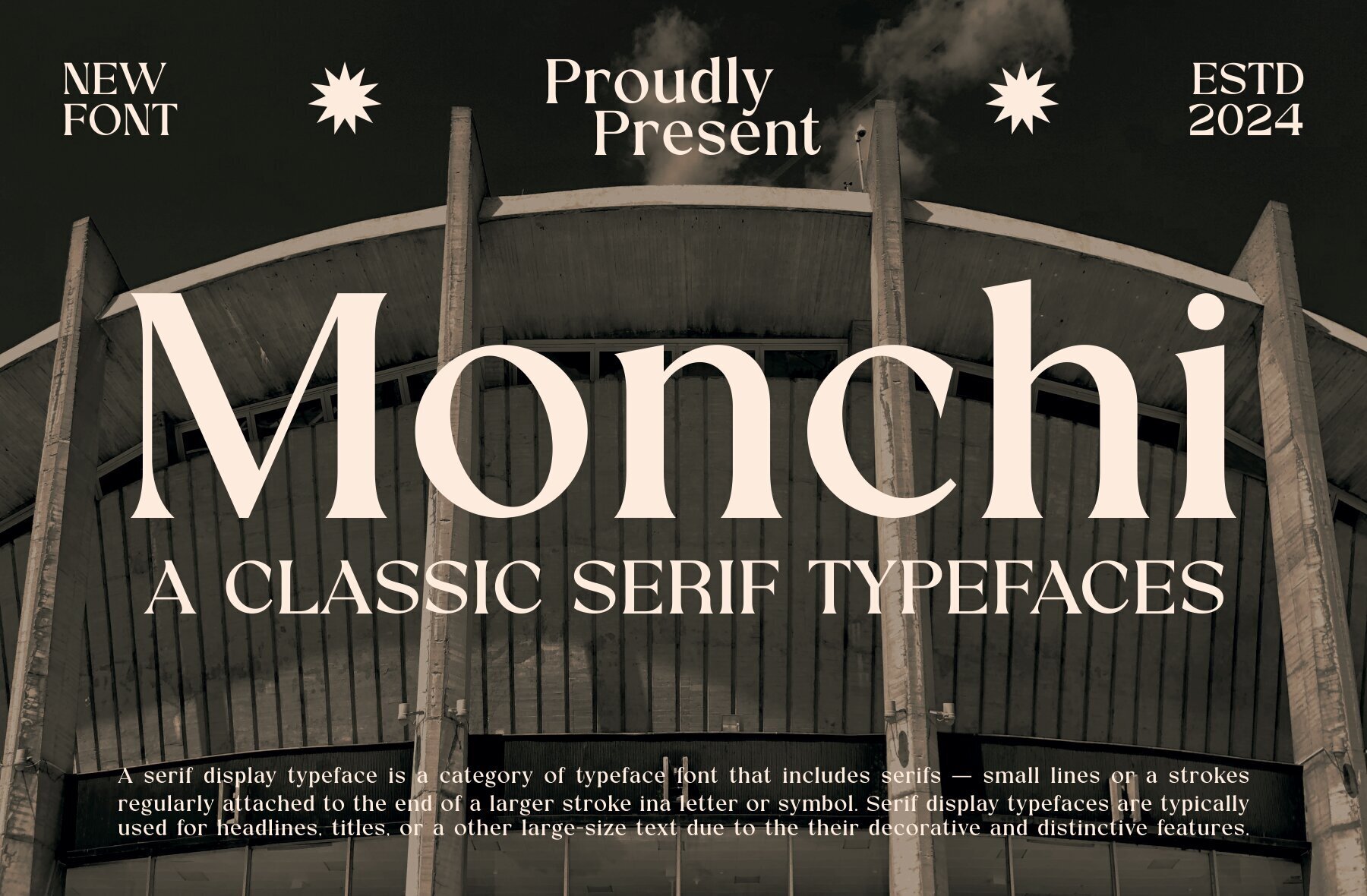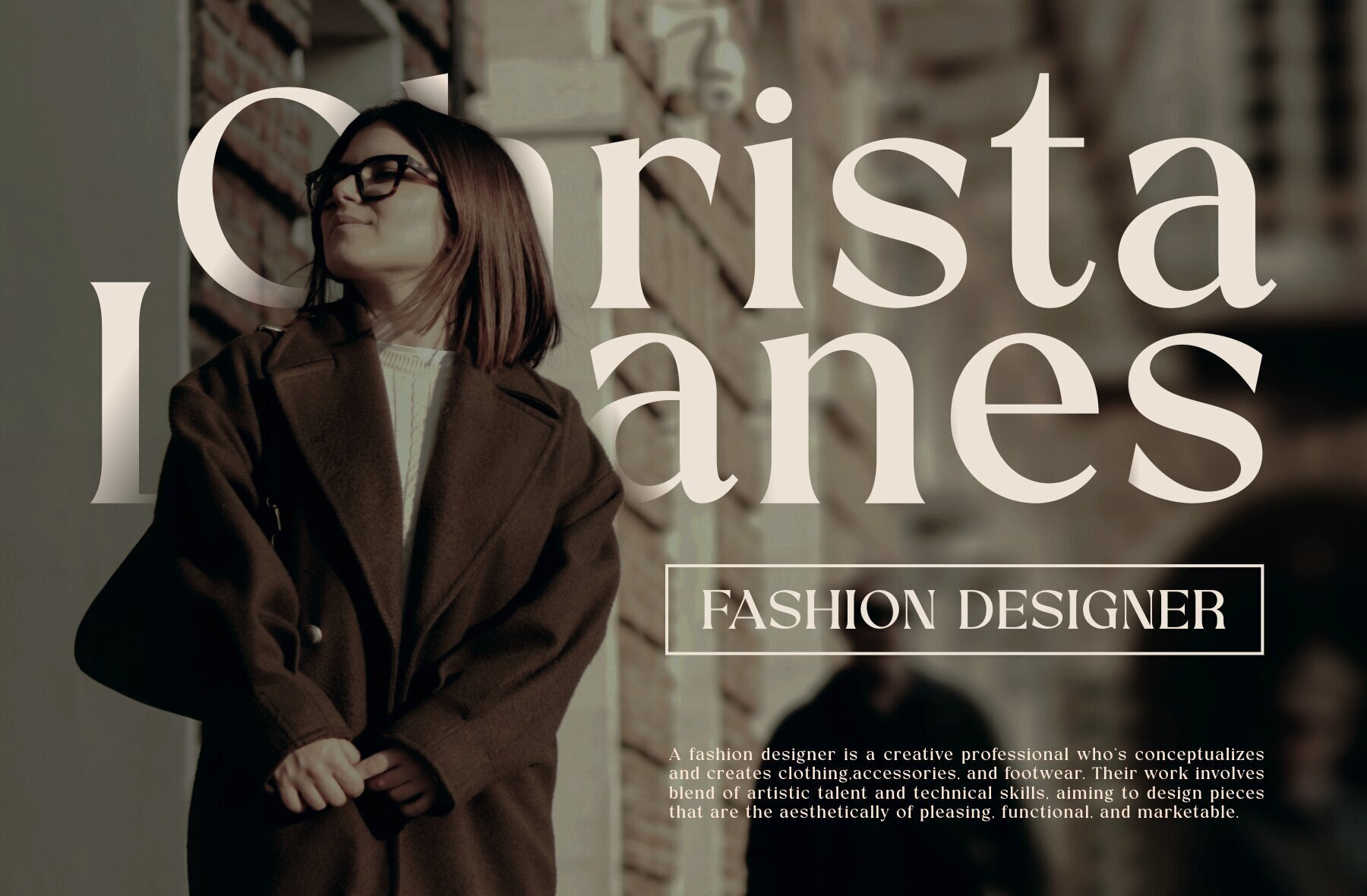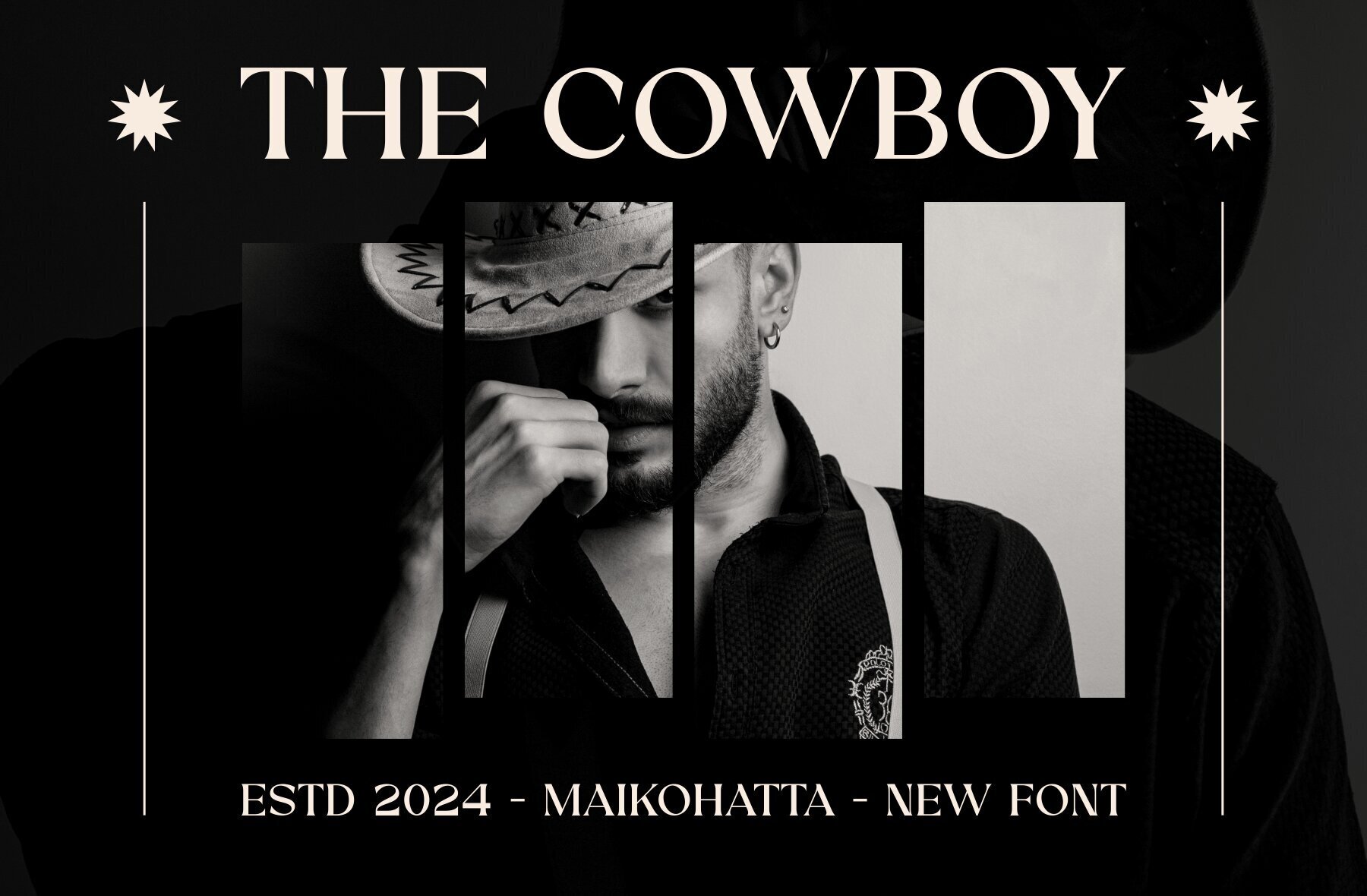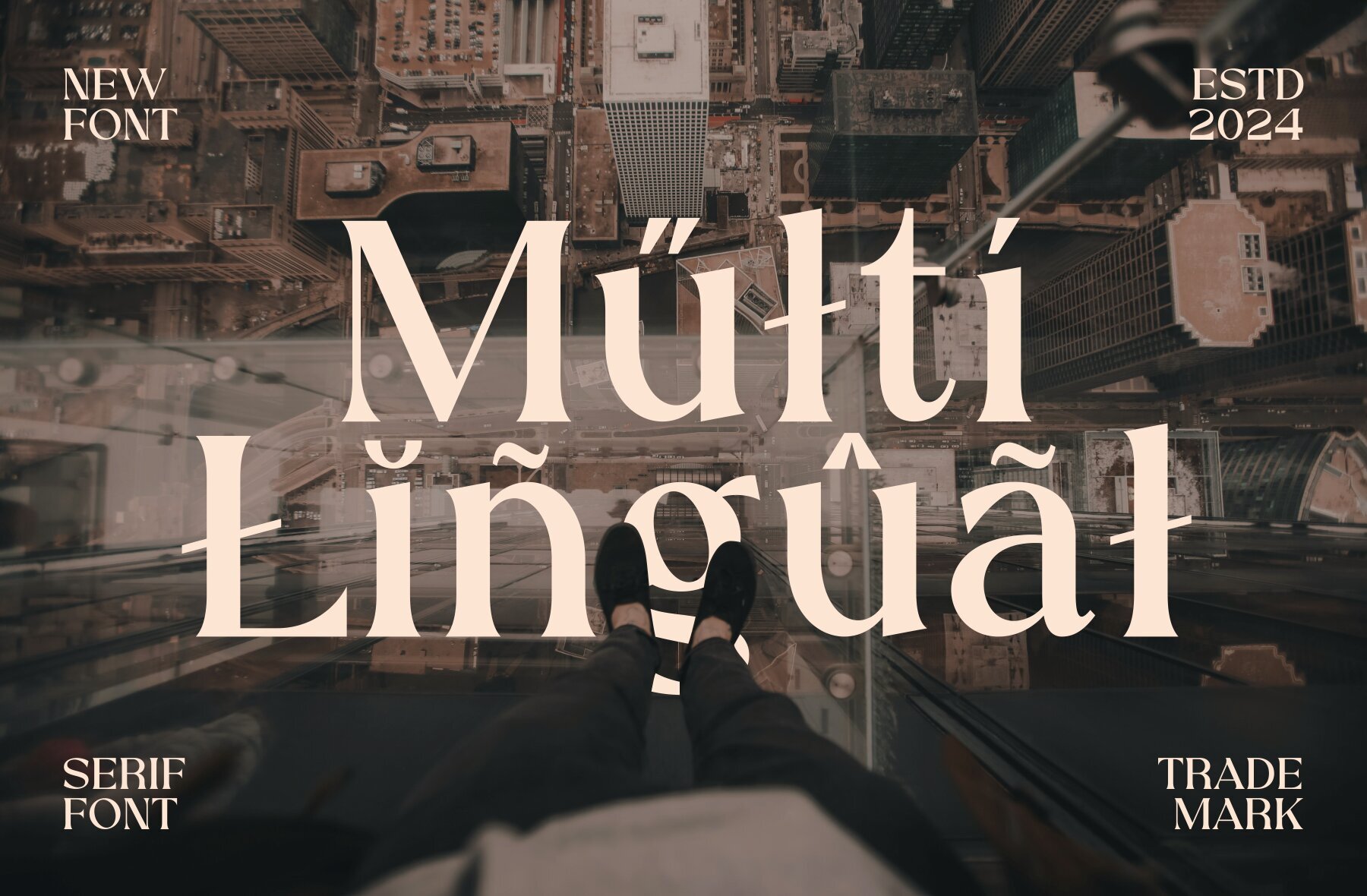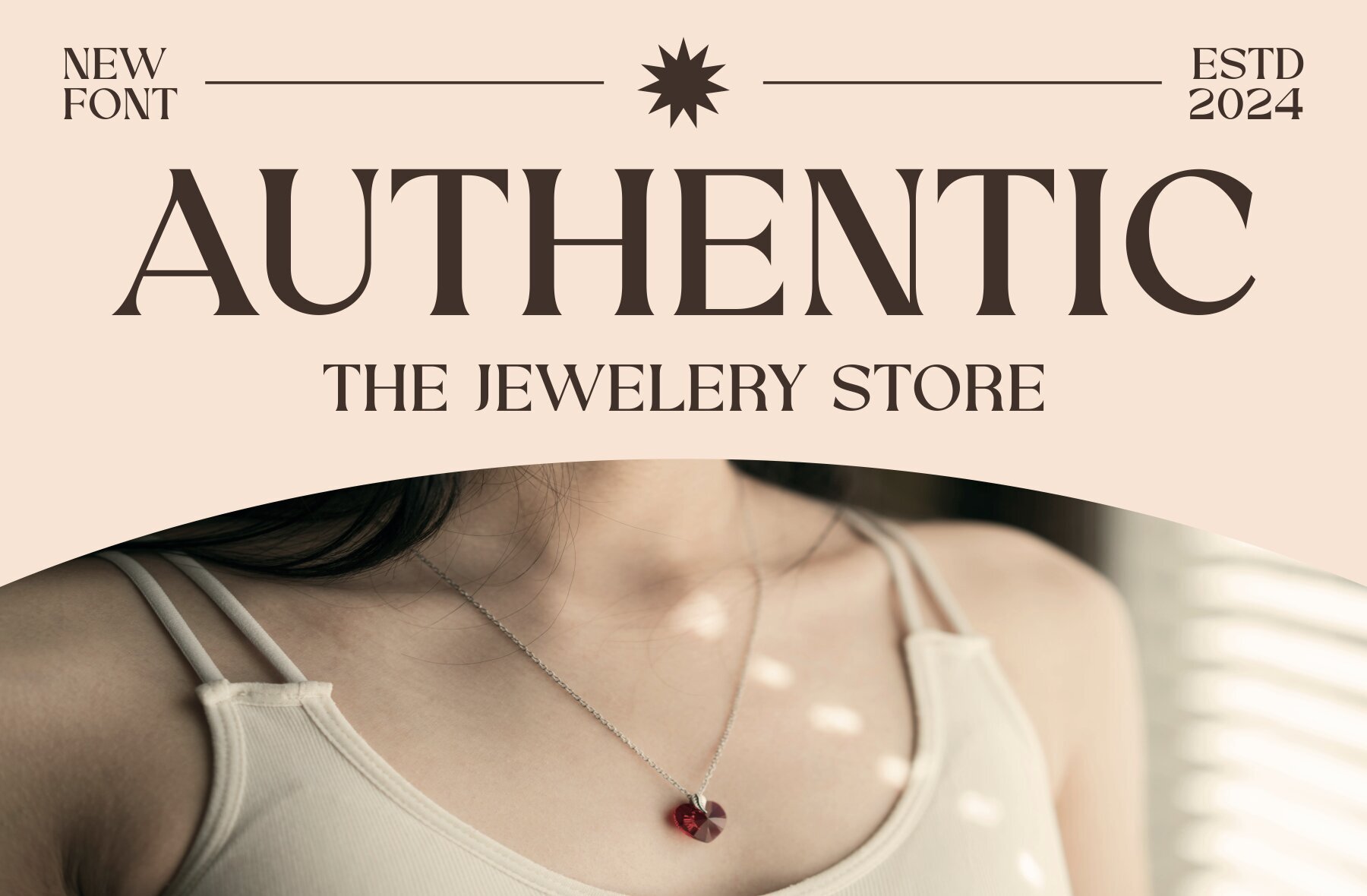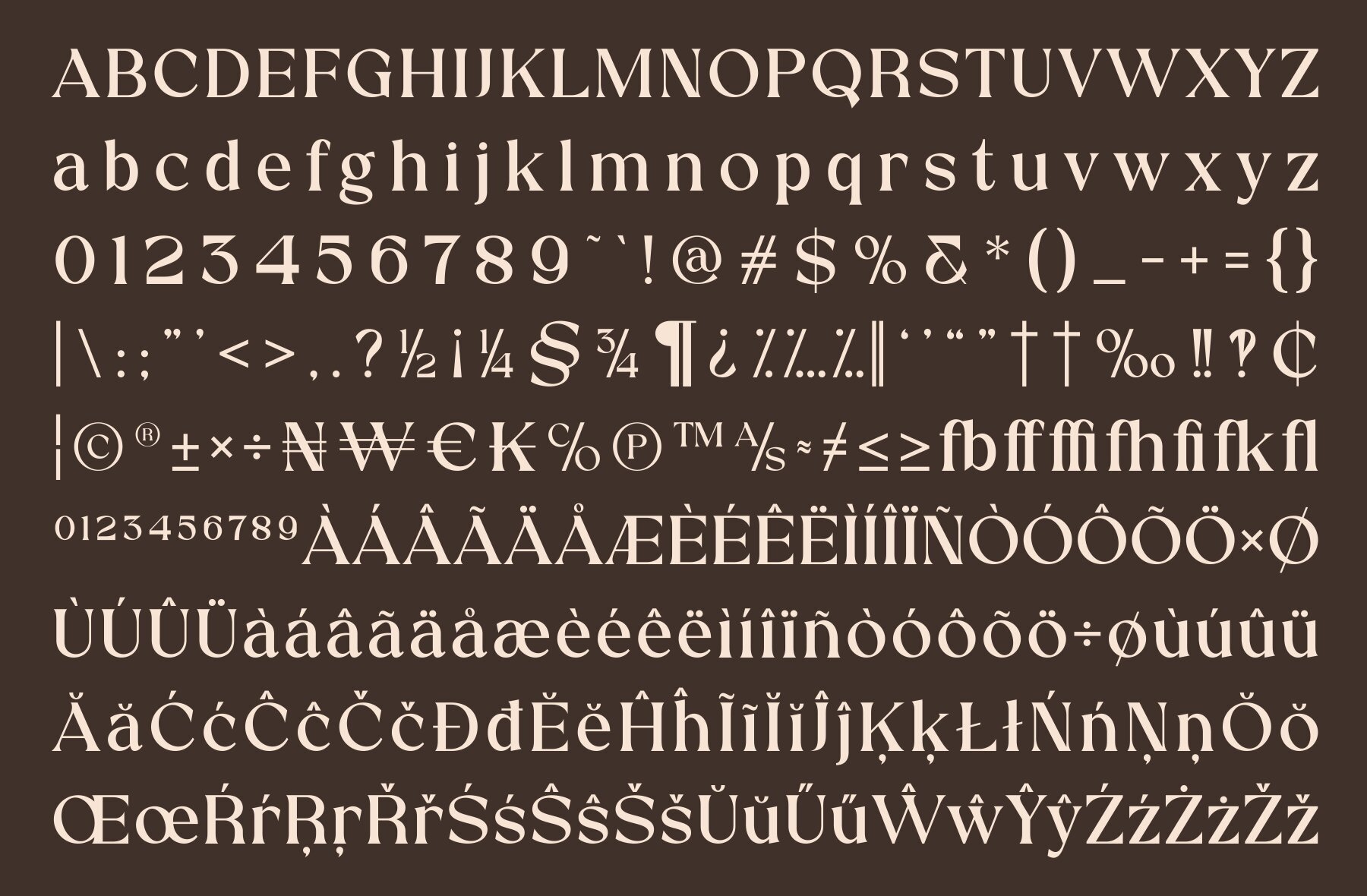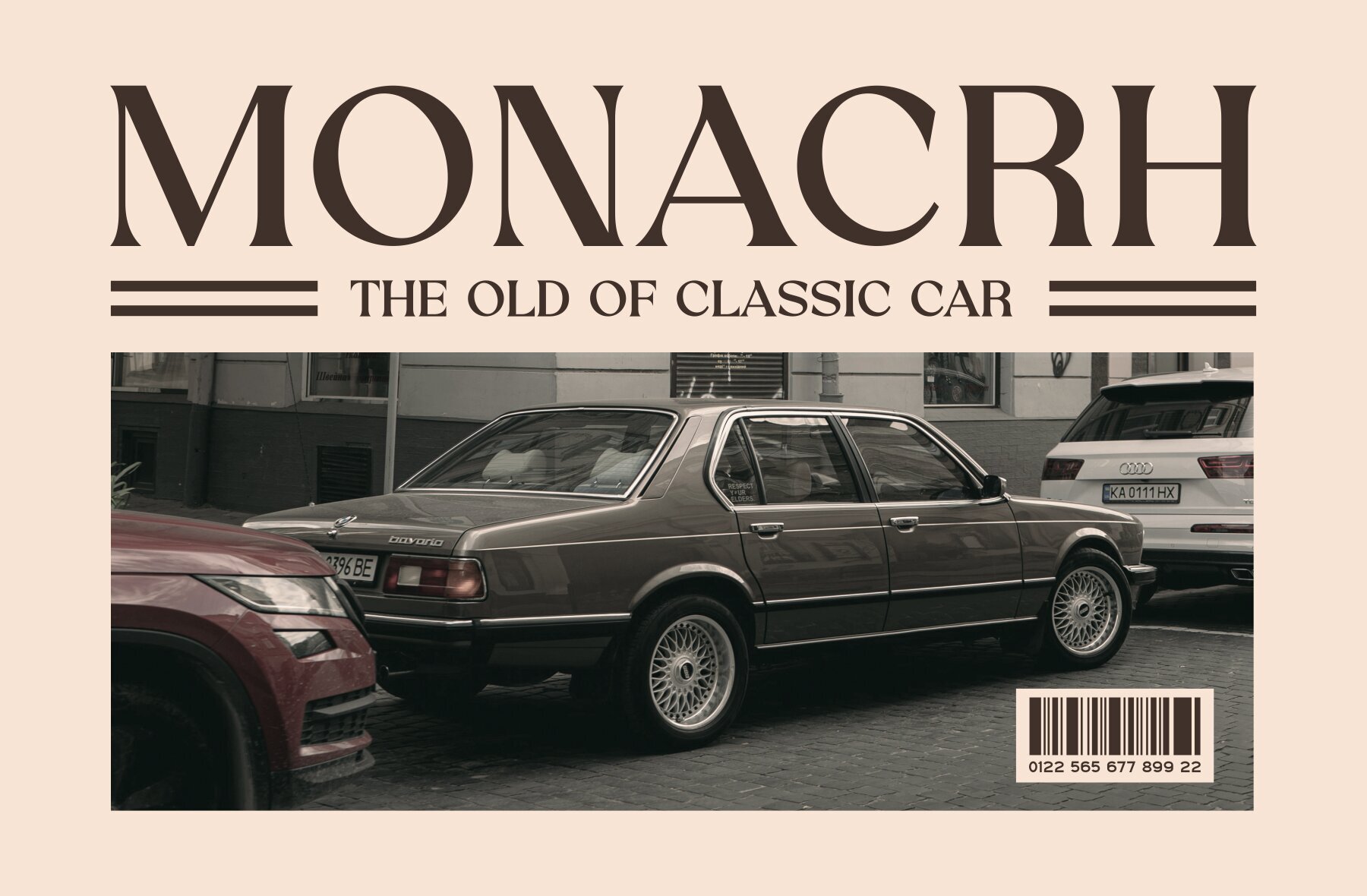
Monchi Font
Monchi Regular
Monchi is a classic serif typeface featuring small decorative projections at the ends of its characters, giving it a formal and traditional appearance. Designed for readability, this font is ideal for use in books, formal documents, and print publications where legibility at small text sizes is crucial.
Key features include uppercase and lowercase letters, multilingual support, and ligatures. Monchi's design ensures your text looks polished and professional, whether on a formal letter or in elegant print media.